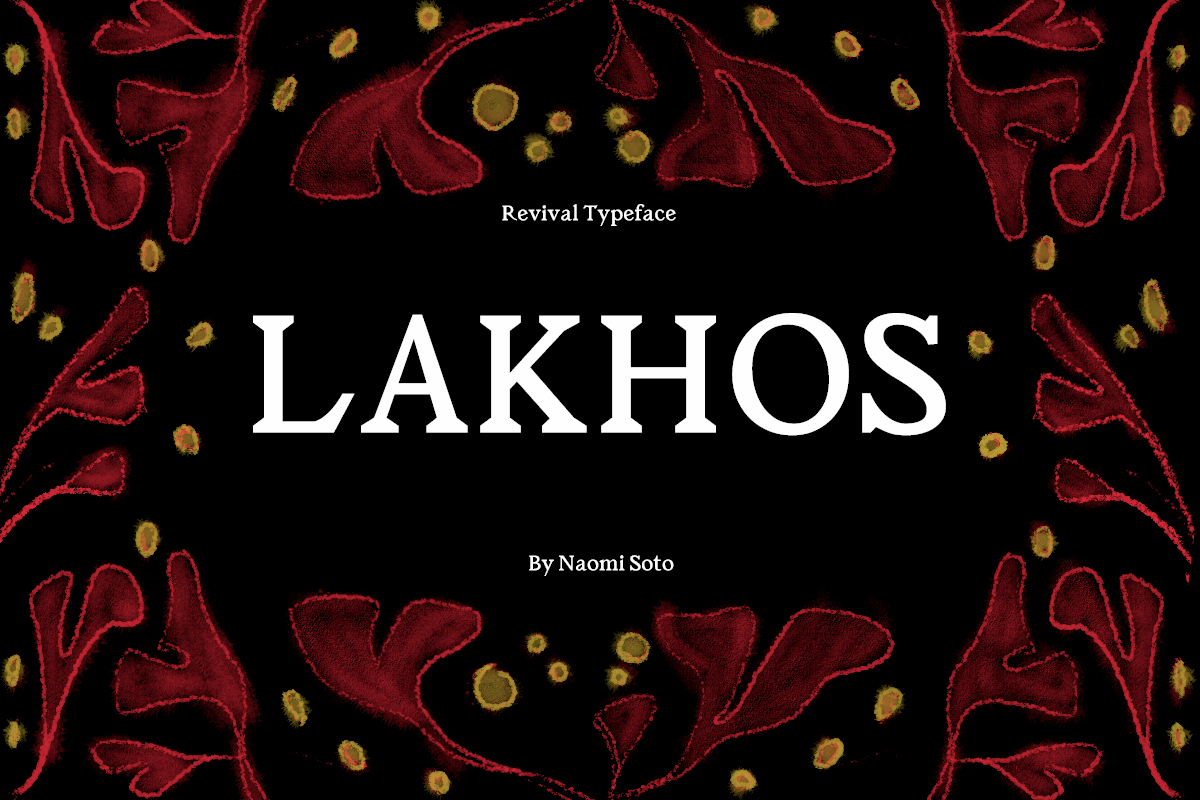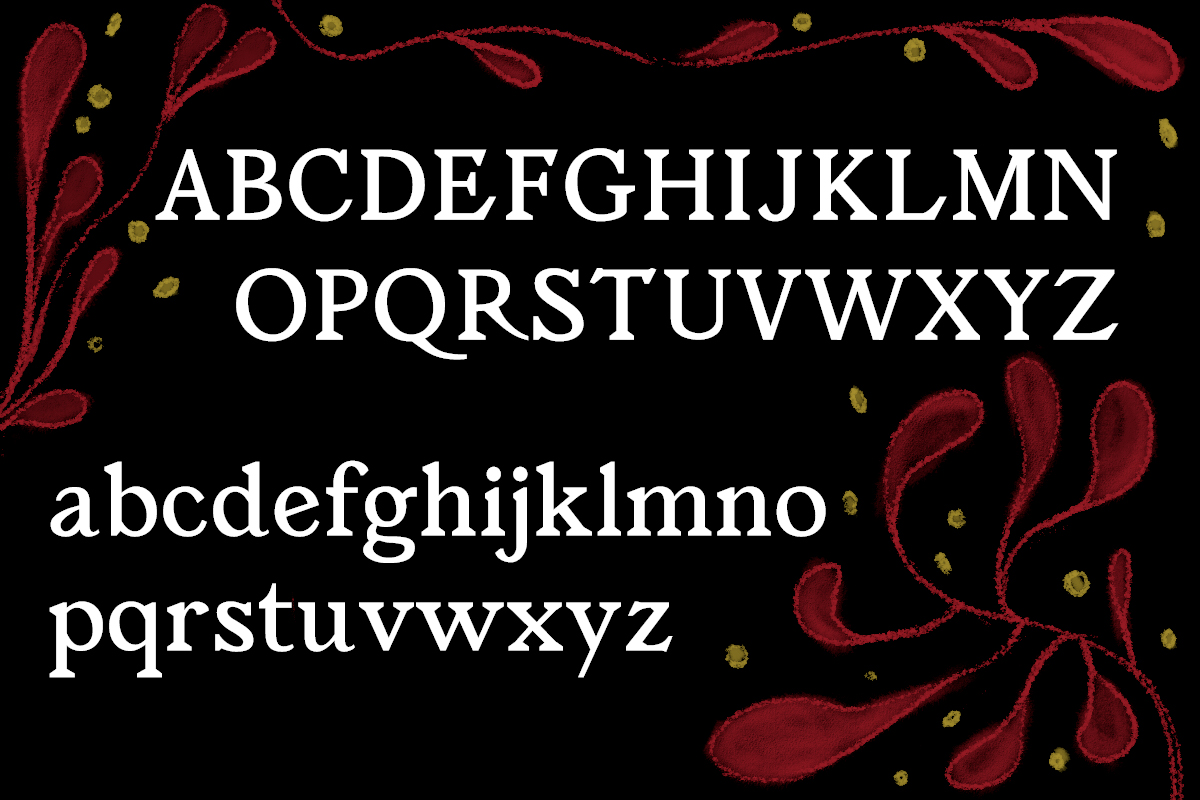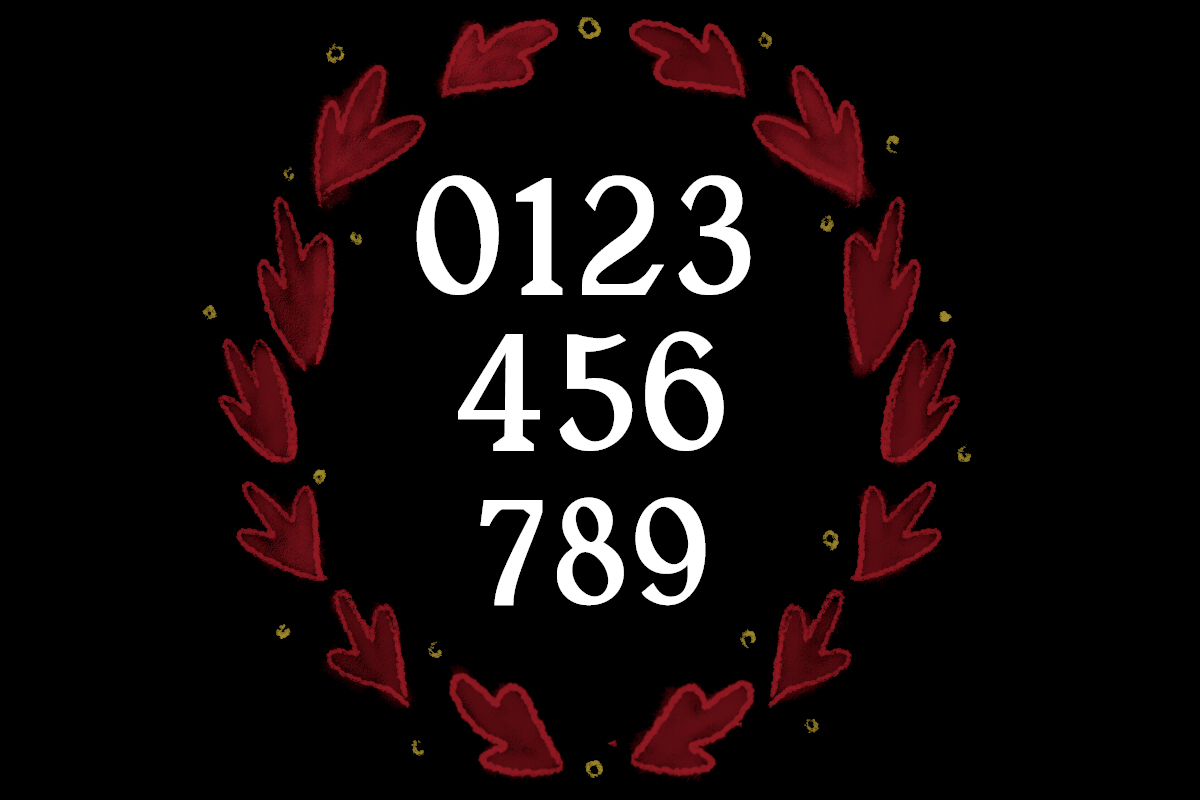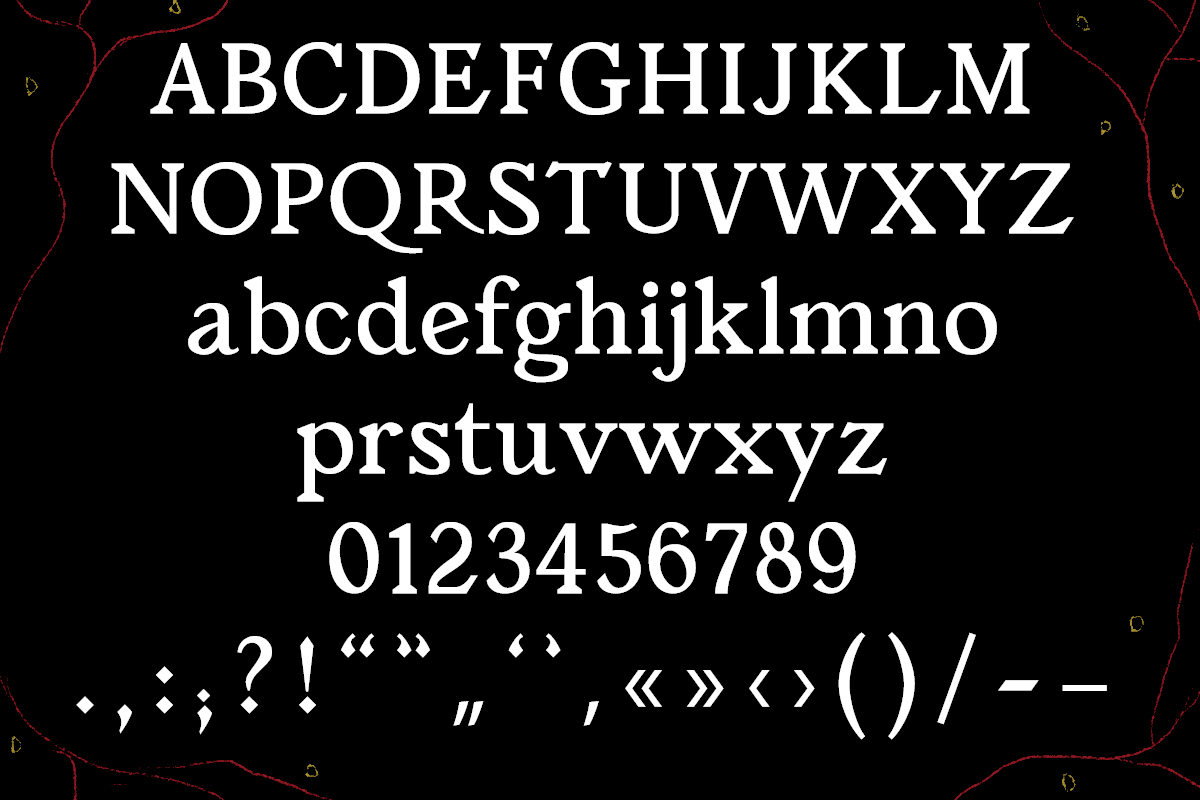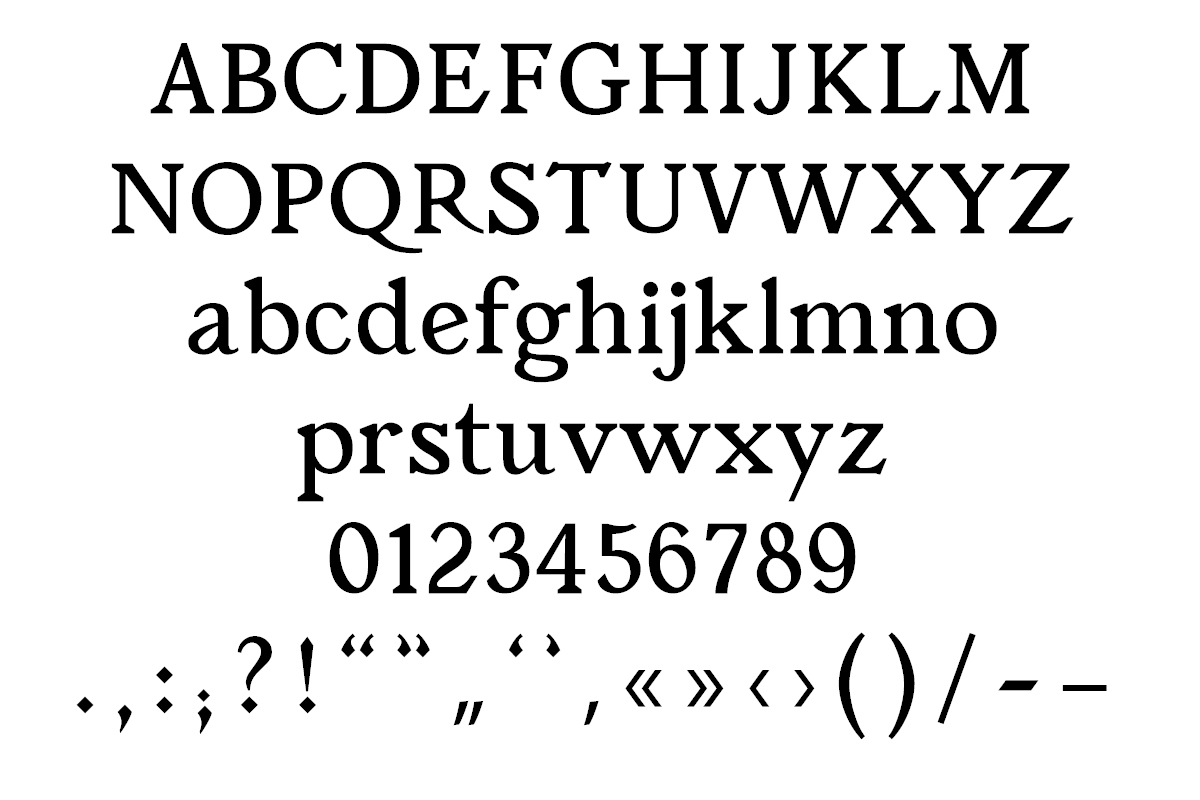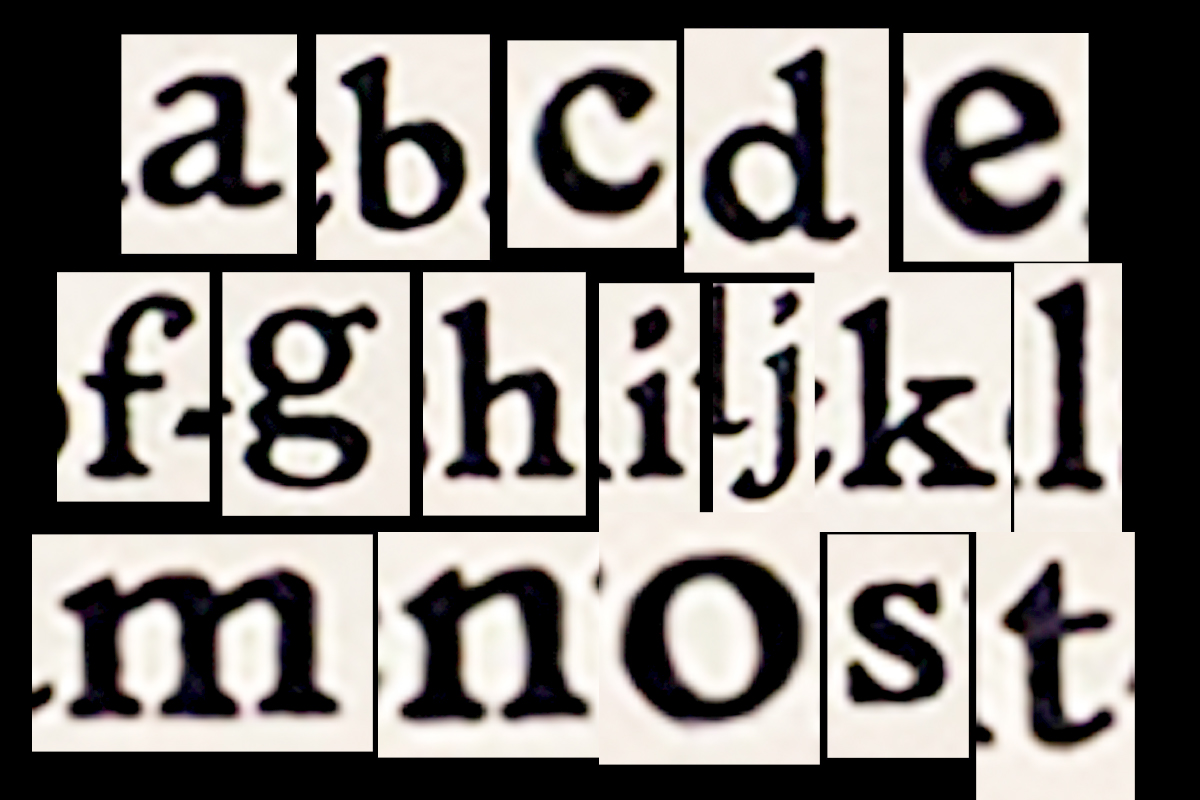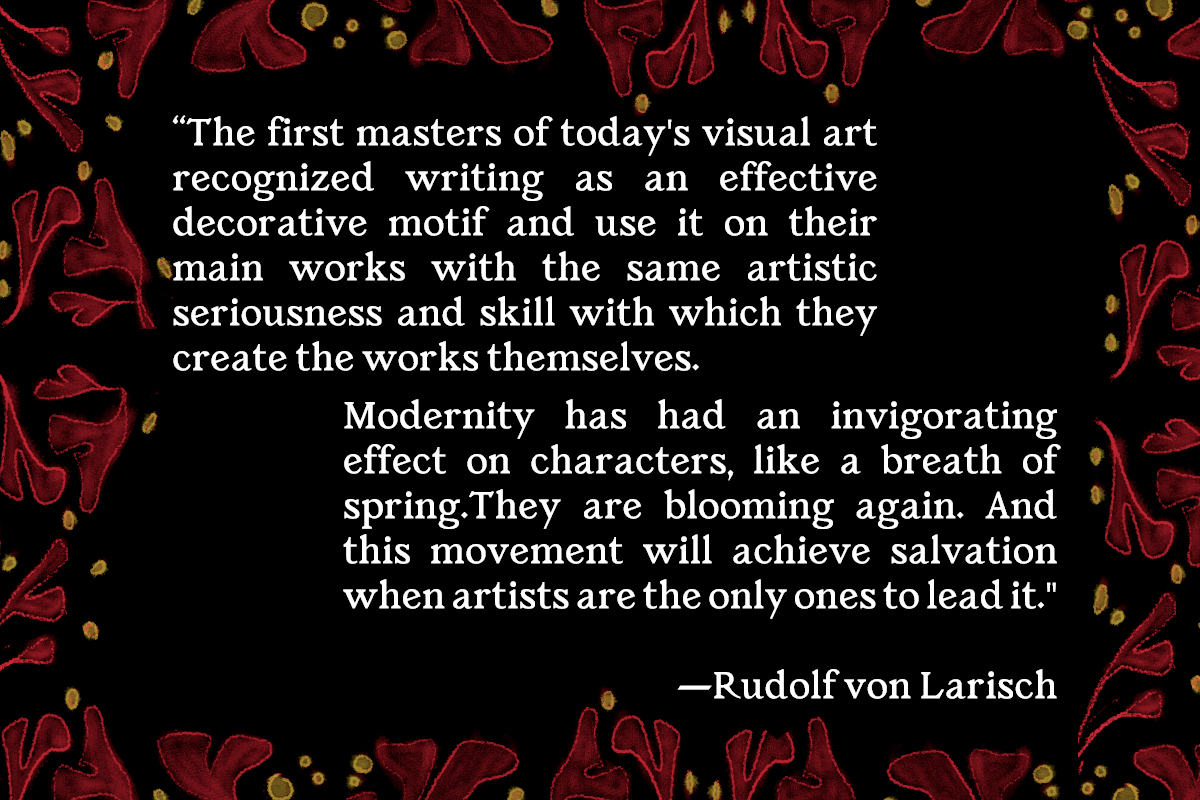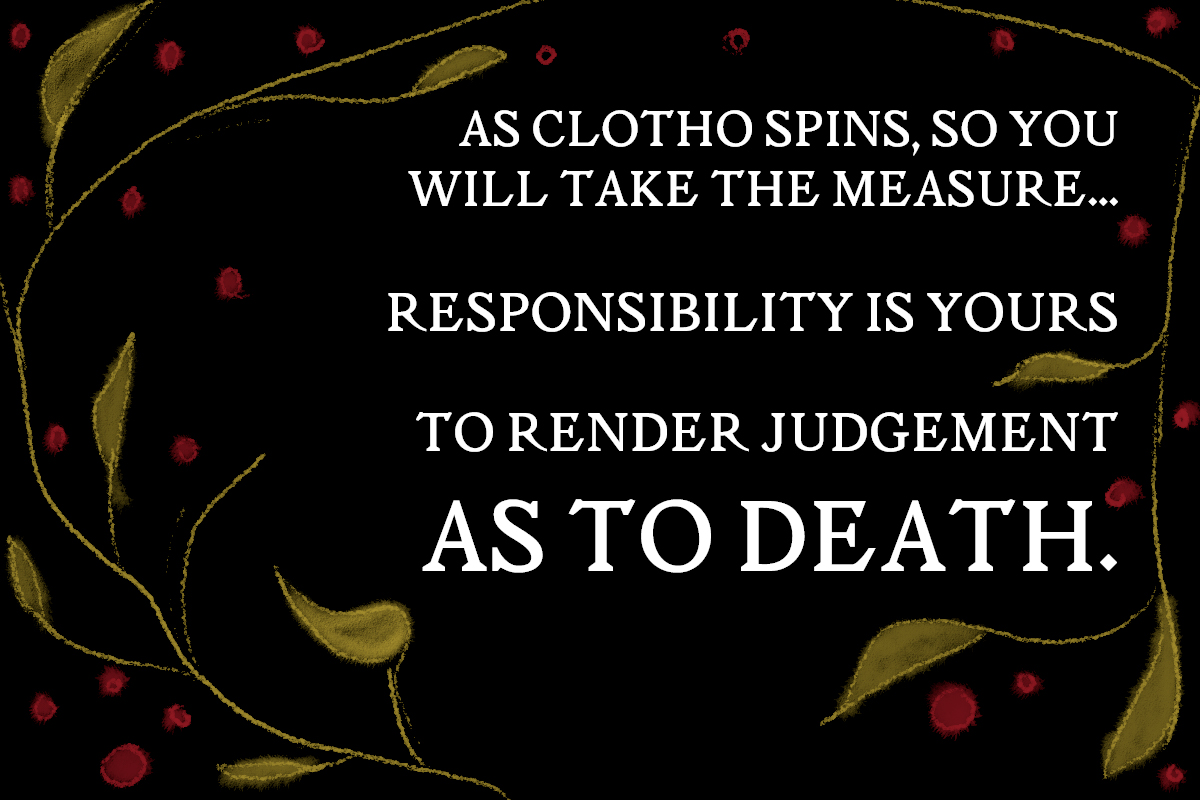
Lakhos
Naomi Soto
Rudolf von Larisch, Austrian type designer, devised Plinius as an exclusive typeface for his country's Imperial Royal Printing House. Lakhos is the most recent revival of Plinius. It attempts to retain the characteristic features of the representative humanist serif of the early 20th century. At the same time, gives a new perspective on how its representation in vintage print can be translated into today's media, focusing on the coherence of form, proportion, and color.